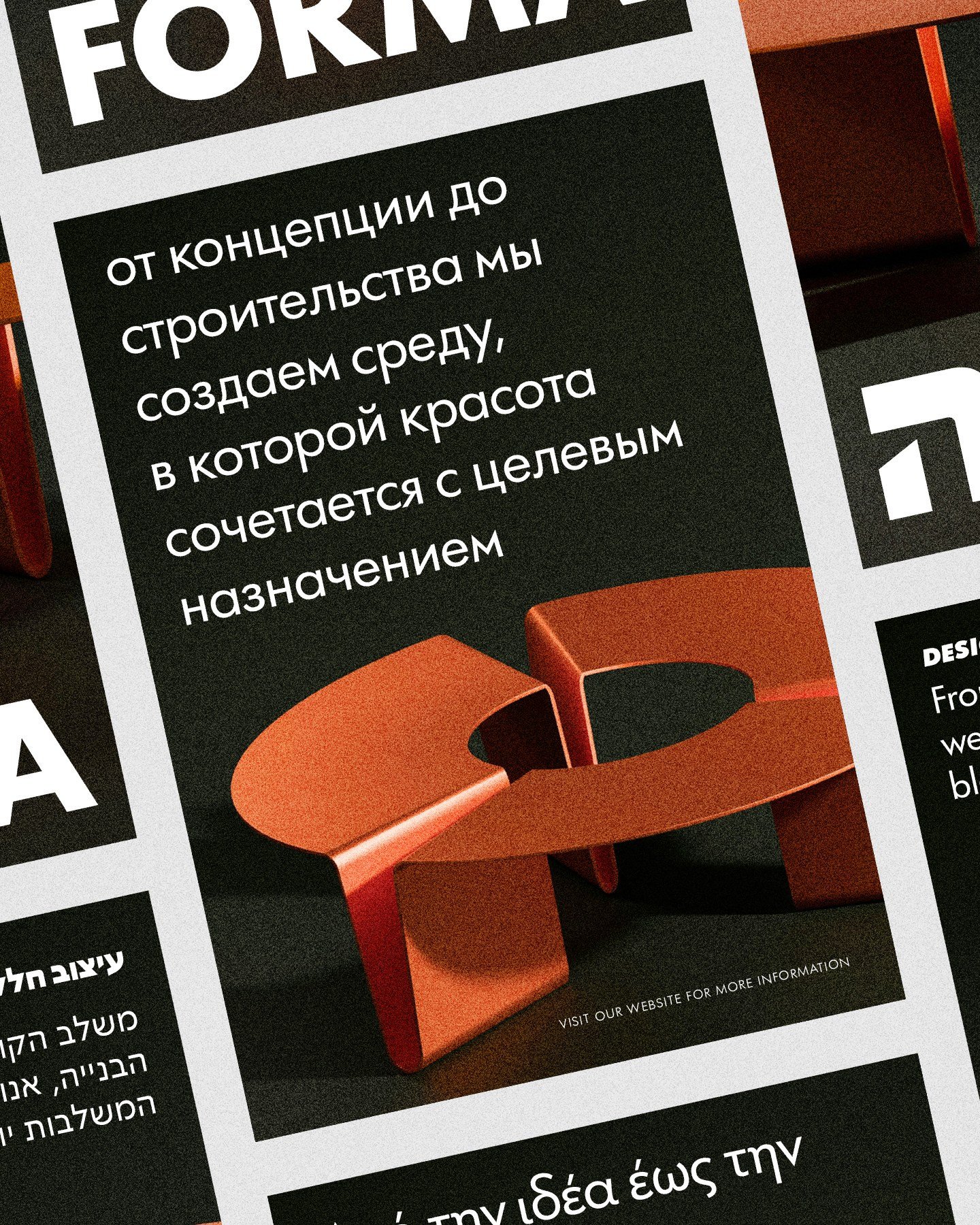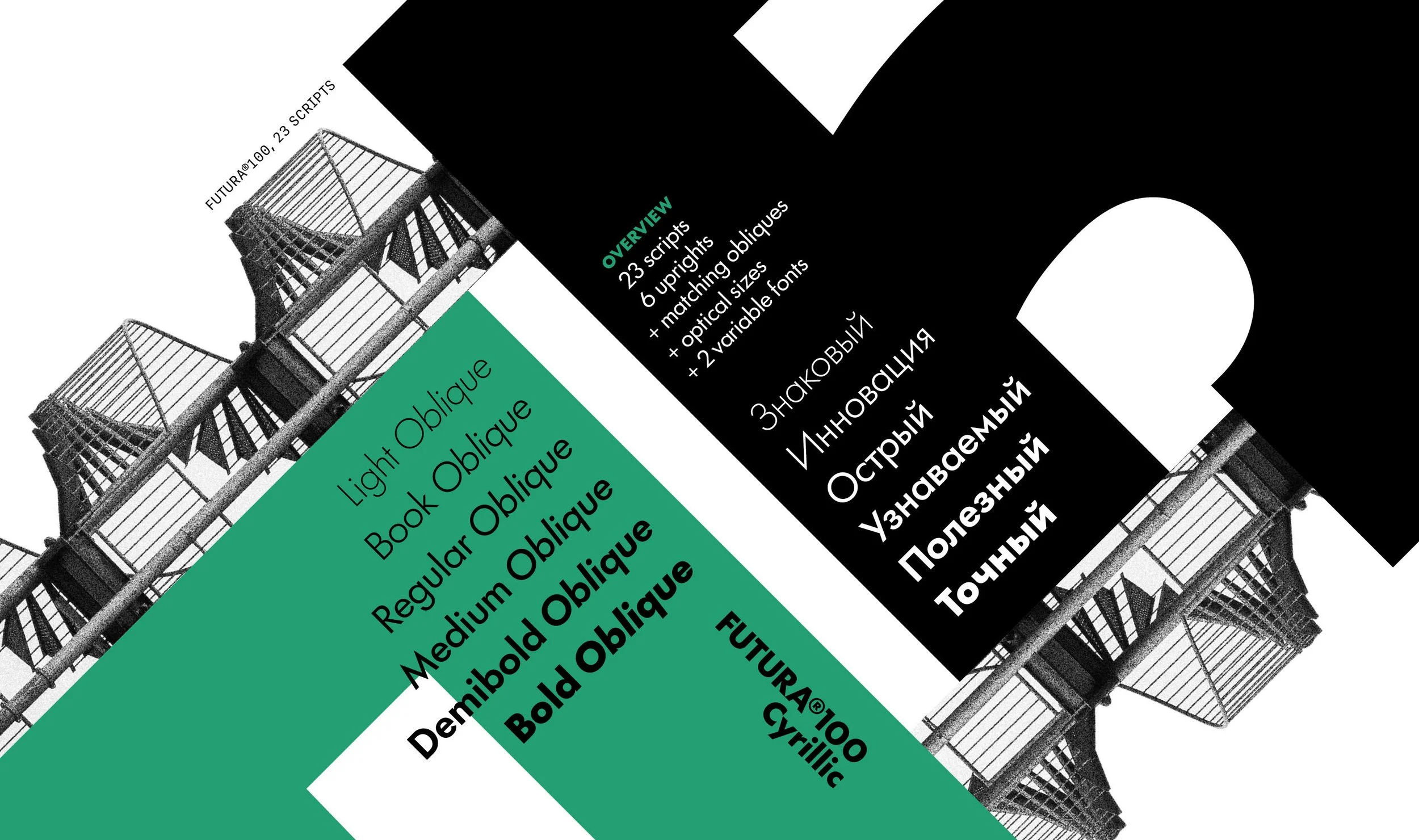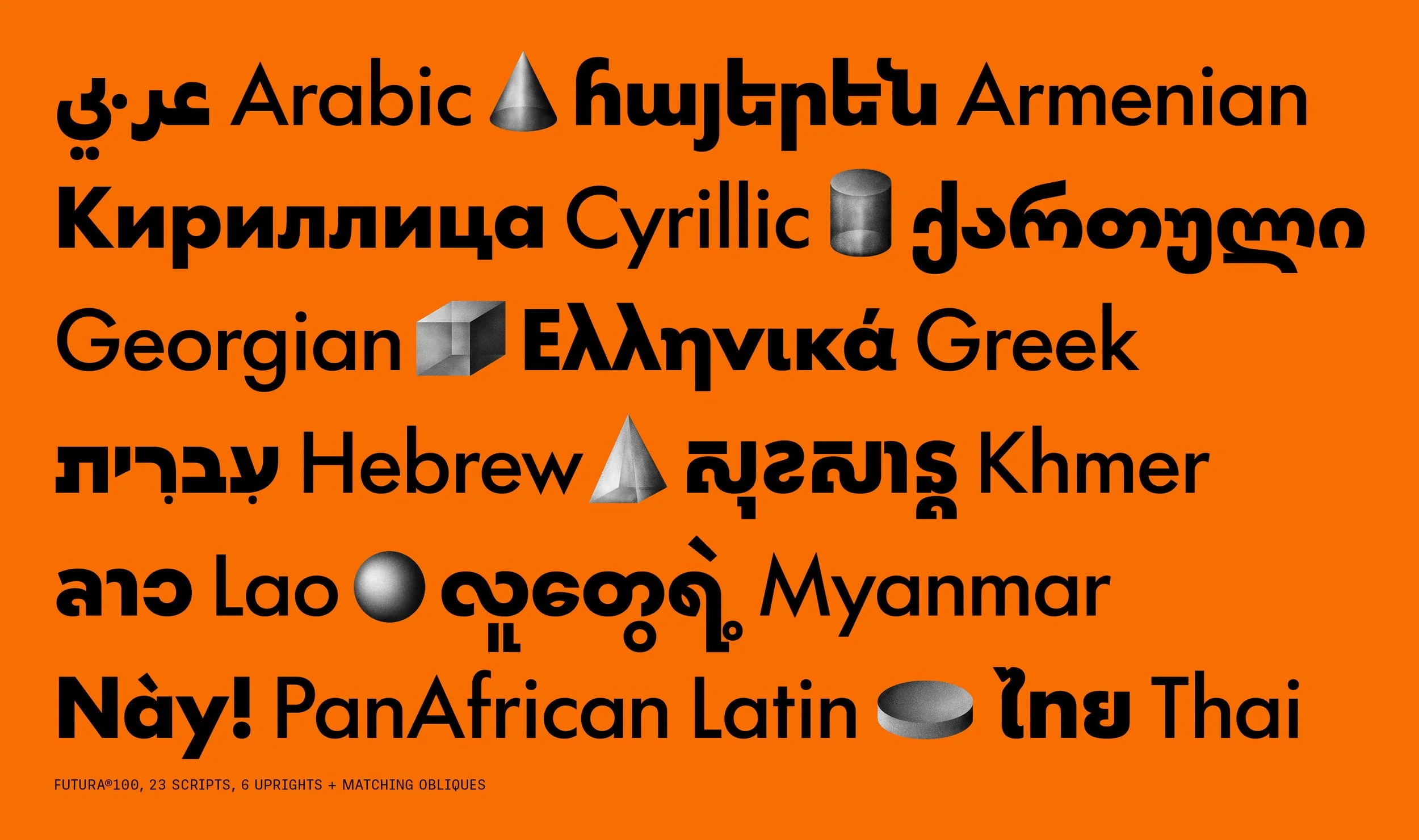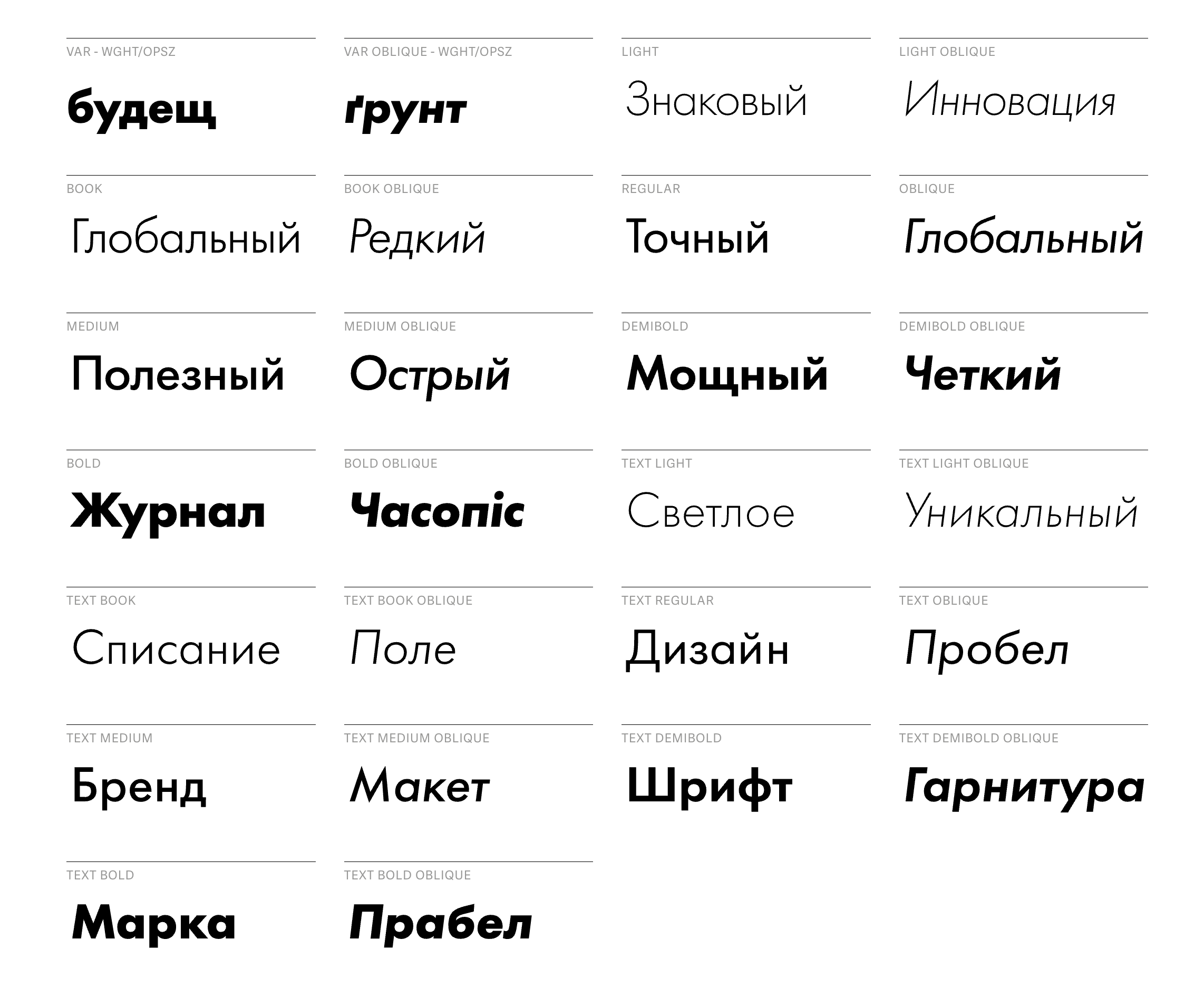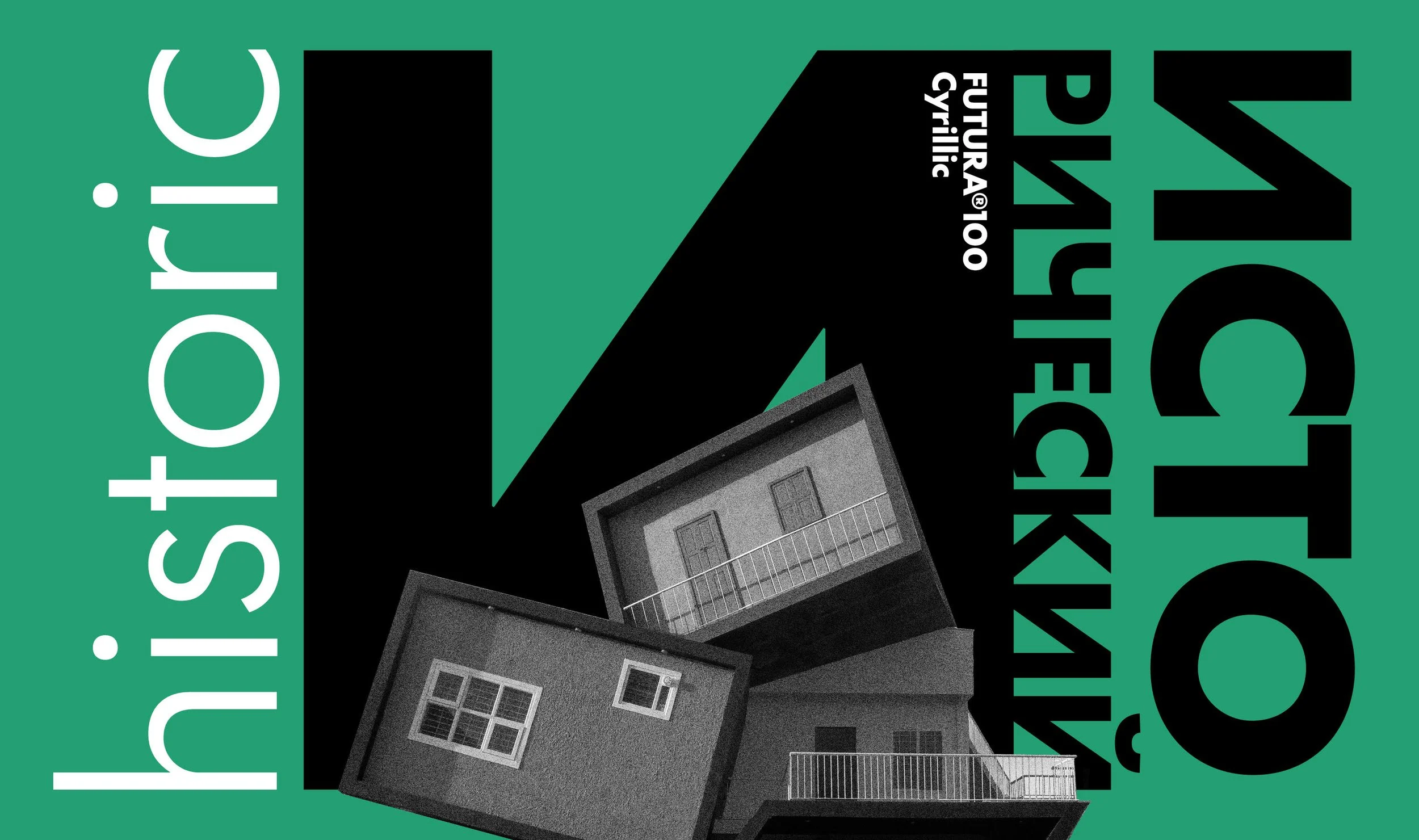
Futura®100 Cyrillic
Vera Evstafieva was trusted and honoured to design Cyrillic part for the amazing global Futura®100 project, working with TypeTogether team. Futura®100 is now designed in 23 scripts for multinational branding, digital devices, and modern publishing demands.
Futura®100 is a revision and expansion of Paul Renner's original design, published in 1927 by Bauersche Giesserei (now Bauer Types)
After two years of extensive research to accurately honour Renner’s intention, the renowned geometric typeface is now available for worldwide use.
Designed by José Scaglione & Veronika Burian & Vera Evstafieva & Paul Renner. Released 2025.